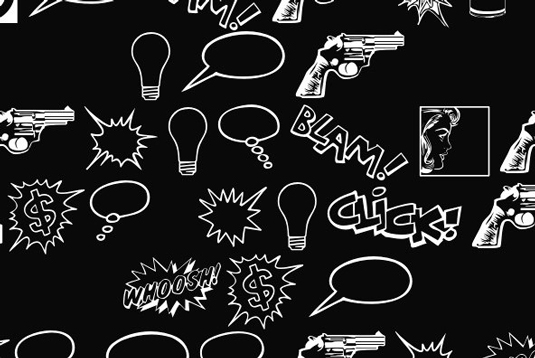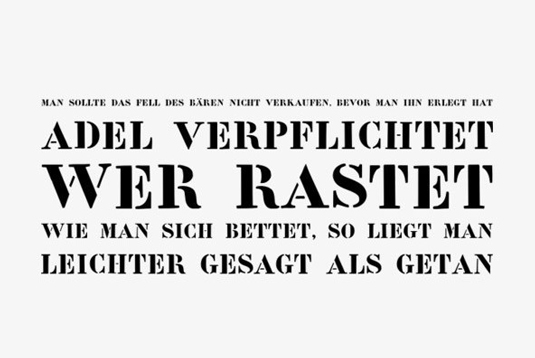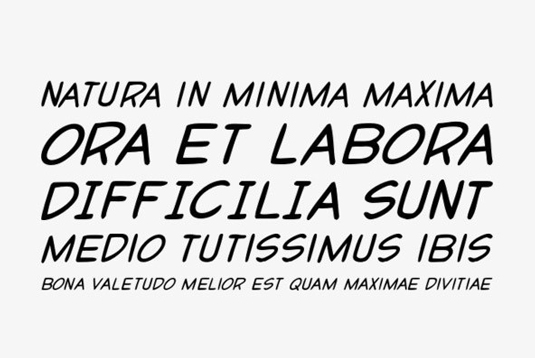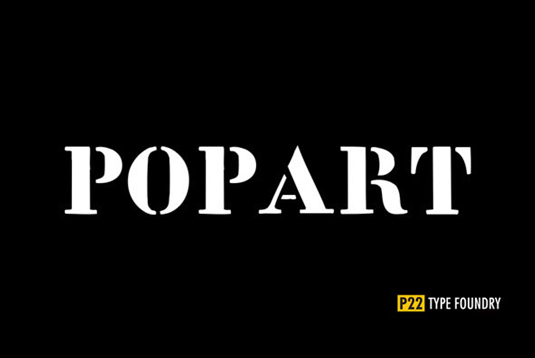
Font of the day: Pop Art
Every day we showcase the best fonts on the web. Today it's Pop Art by P22.
Pop Art by P22
Inspired by fonts from comic books, magazines, advertising and films of the 1950s and 60s, Pop Art was created by P22 type foundry, which began making artist inspired digital fonts in 1994.
There are five fonts within this set; Pop Art Comic, an all caps font reminiscent of the lettering found in comic books and inspired by the paintings of Roy Lichtenstein, Pop Art Comic Bold Italic, Pop Art Stencil, all-caps font inspired by stencil lettering which appeared in many pop artists paintings and assemblages, Pop Art 3D, an all caps font which evokes the feeling of soft objects or off register silk-screen printing and Pop Art Extras, a collection of imagery which has appeared in the work of many Pop Artists.